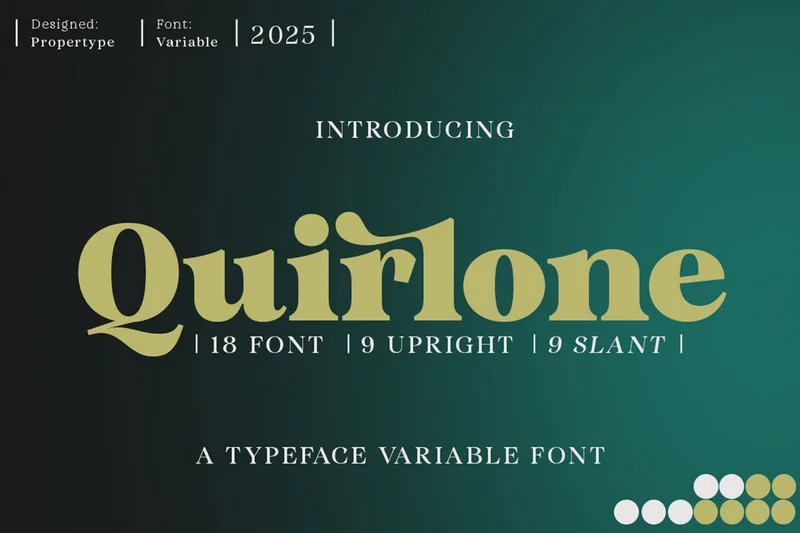
Quirlone
Quirlone is a high-contrast typeface with a transitional, contemporary, harmonious, and stylish feel. This font expands its use by offering weights ranging from Light to Extra Bold. Its natural curves, with its charming italics, are given more weight, while thinner weights reduce contrast and optical correction to create a warm, soft look.
Quirlone also comes in two versions: Regular and Italic, making it easy for designers to explore and refine beautiful designs, revealing a myriad of visual nuances and hidden secrets.
A variety of weights and styles for design flexibility
Elegant serif details combined with modern simplicity
High legibility for print and digital projects
Perfect for branding, editorial, invitations, and web use Quirlone is a great choice for a variety of applications, including editorial design, headlines, branding projects, logo design, packaging, magazine titles, advertisements, and both short and long-form text.